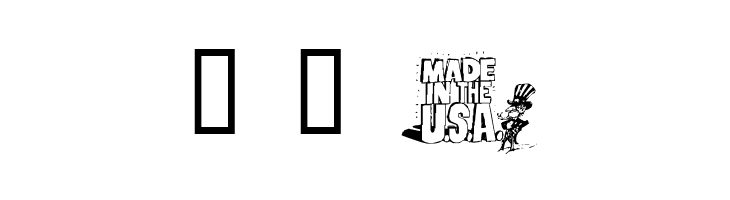
A collection of vintage American-themed symbols and illustrations.
Patriotic-themed dingbat font with detailed illustrations.
Patriotic American-themed dingbat illustrations.